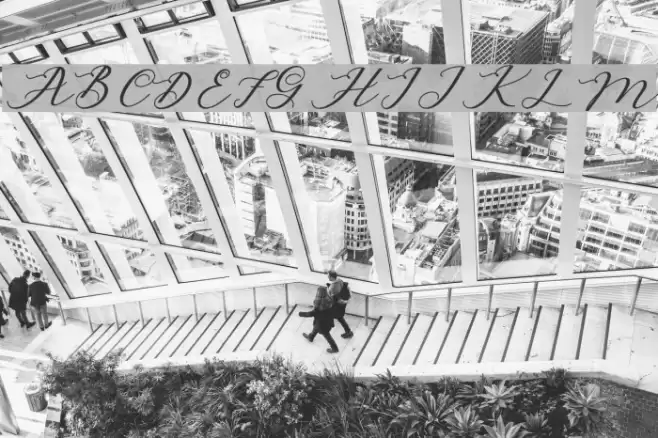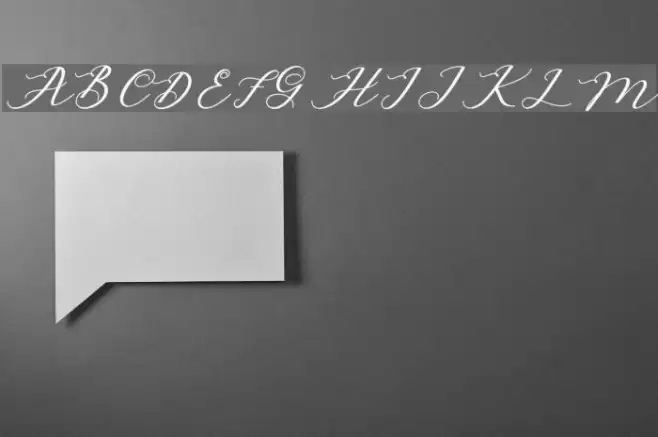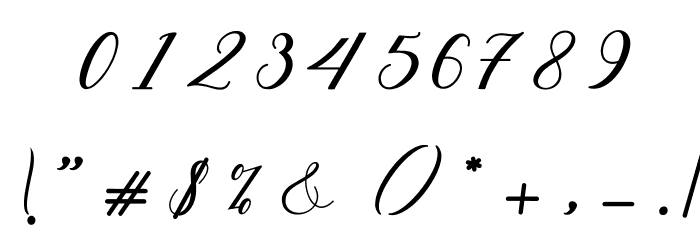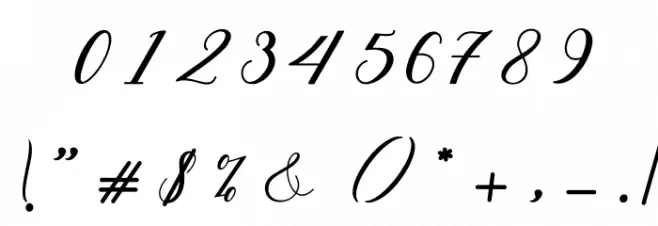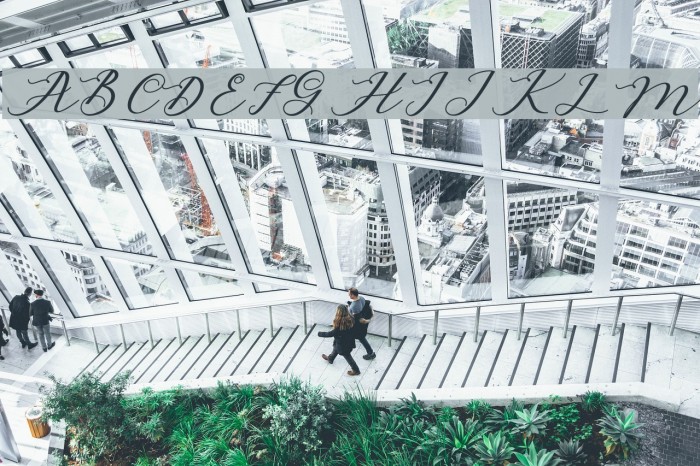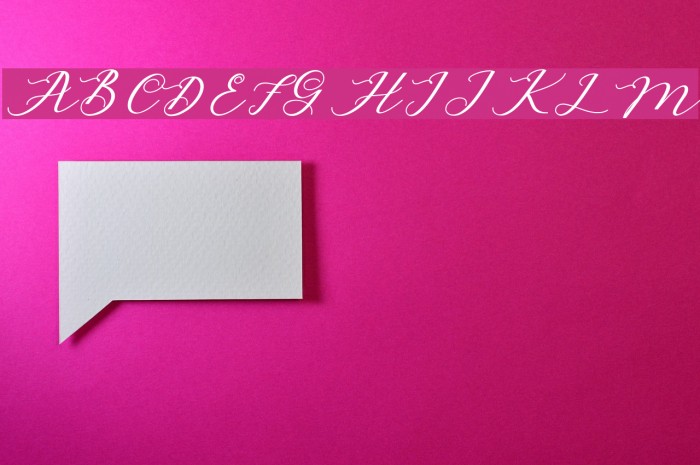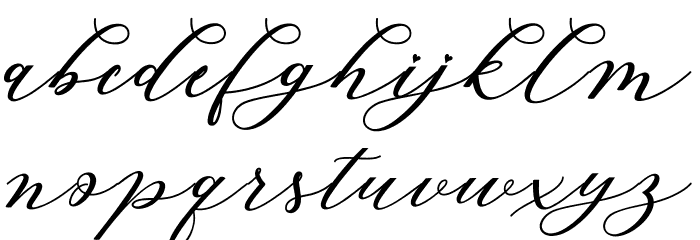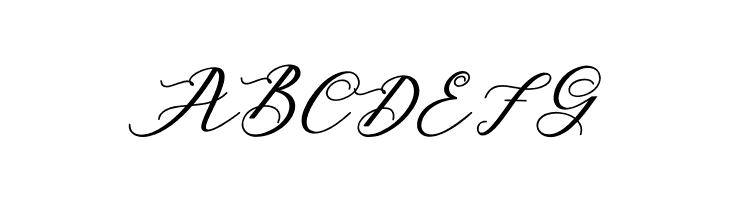
AutinesScript Font
AutinesScript Description
This elegant script font features flowing, cursive letters with a classic and sophisticated appearance. The uppercase letters are characterized by their sweeping curves and intricate loops, while the lowercase letters maintain a graceful and fluid style. The numerals are designed with a similar flair, adding a touch of elegance to any numerical display. Special characters are crafted with attention to detail, enhancing the overall aesthetic. The font's delicate strokes and high contrast between thick and thin lines contribute to its refined and stylish look, making it ideal for formal invitations, branding, and decorative purposes.
An elegant script font with flowing, cursive letters and high contrast strokes from Uncategorized fonts.
- Proposed Projects: Ideal for wedding invitations, elegant branding, greeting cards, and decorative signage.
- Overall Style: Classic
- Use Case: Headlines, Logos, Invitations